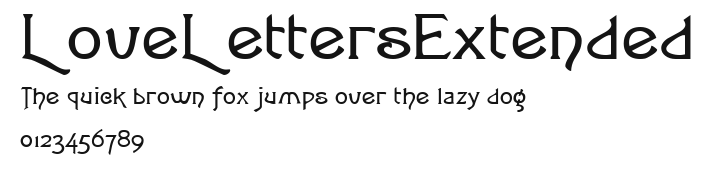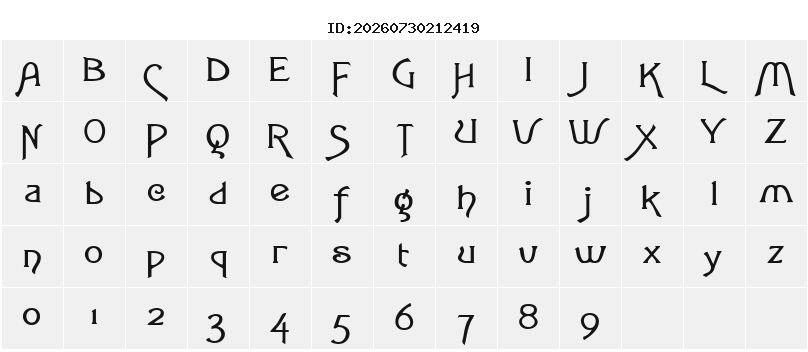
LoveLettersExtended Preview
About LoveLettersExtended.ttf
LoveLettersExtended.ttf is a modern, elegant sans-serif font designed for ultimate readability and visual harmony. Perfect for branding, headlines, web design, and print materials.